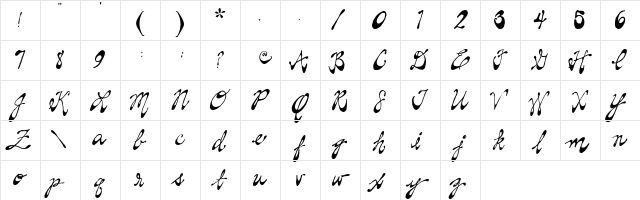
2Peas Lady Like Regular Free Font
2Peas Lady Like Regular
Design Context for 2Peas Lady Like
2Peas Lady Like is a composed and adaptable typeface that performs quietly and consistently across a wide range of design contexts.